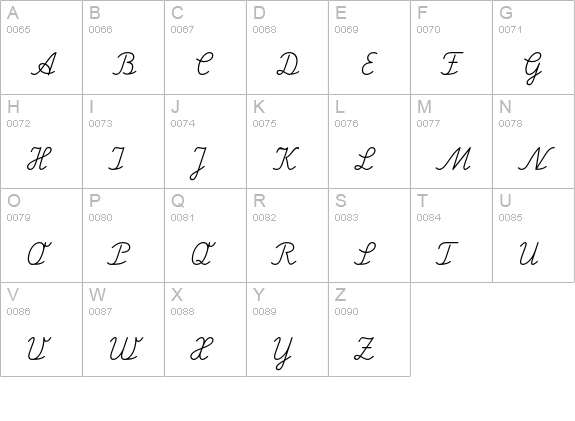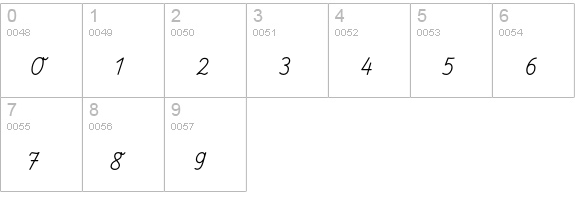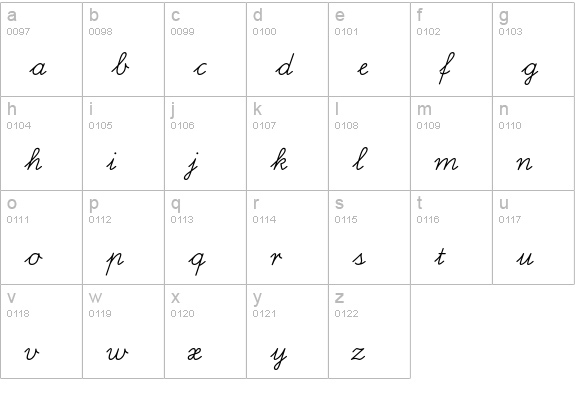
SchulschriftB Font Details
Introducing SchulschriftB, a captivating and versatile font that combines classic elegance with a modern twist. Designed with utmost attention to detail, this font exudes a timeless charm that effortlessly captures the essence of sophistication. SchulschriftB is the perfect choice for those seeking a font that conveys a sense of refinement and grace. Its delicate yet confident strokes create a harmonious balance, making it suitable for a wide range of design projects. Whether used in headlines, logos, invitations, or editorial layouts, SchulschriftB adds a touch of elegance that instantly elevates any design. One of the standout features of SchulschriftB is its remarkable versatility. With various weights and styles, this font allows you to experiment and create unique combinations that perfectly match your creative vision. From bold and expressive to subtle and understated, SchulschriftB offers endless possibilities to bring your designs to life. What sets SchulschriftB apart is not only its stunning aesthetics but also its accessibility. This font is freely available to download at FontsMarket.com, ensuring that designers of all levels can enjoy the beauty and functionality it offers. By making it accessible to everyone, SchulschriftB encourages creativity and empowers designers to explore new horizons. In conclusion, SchulschriftB is a remarkable font that effortlessly blends classic elegance with contemporary design. Its versatility, accessibility, and timeless appeal make it an essential addition to any designer's toolkit. Whether you're working on a branding project, editorial layout, or simply want to add a touch of sophistication to your designs, SchulschriftB is the perfect choice. Download it for free at FontsMarket.com and unlock the endless possibilities that this font has to offer.